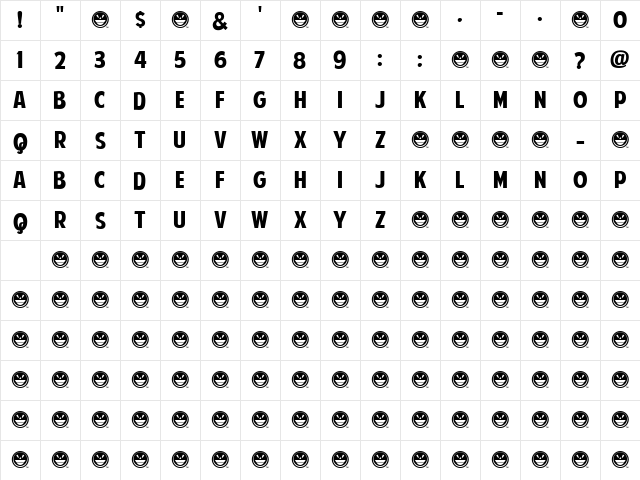
American Purpose Regular
Foundry: The Fontry
Year: 2011
Design Context for American Purpose
American Purpose is a composed and adaptable typeface that performs quietly and consistently across a wide range of design contexts.
Who designed the American Purpose Regular font?